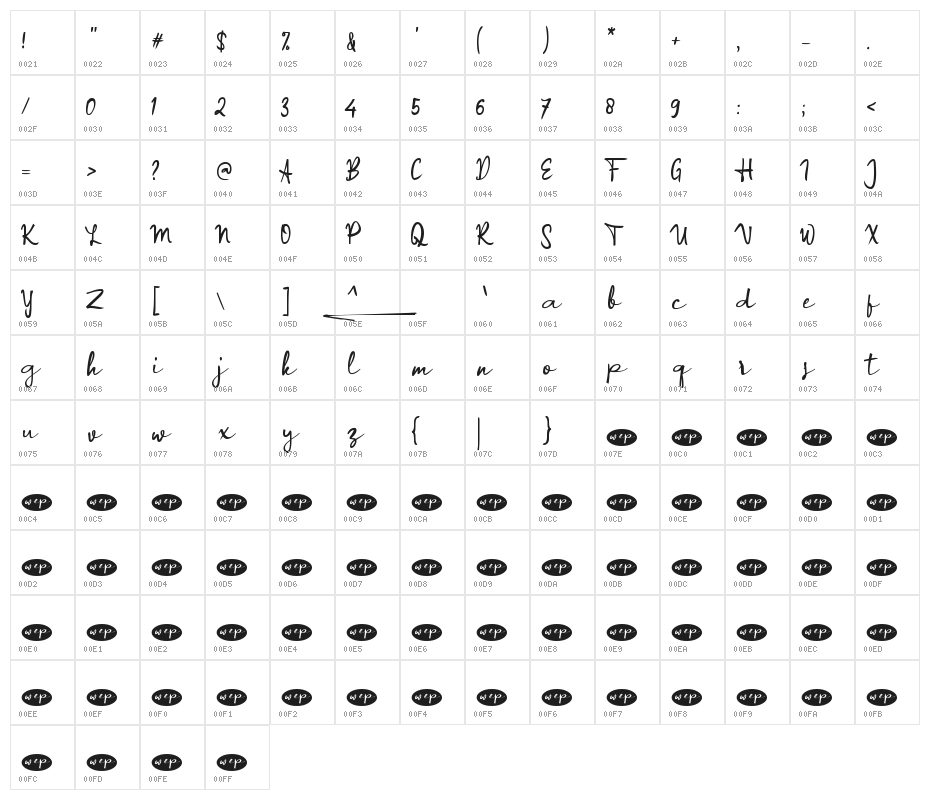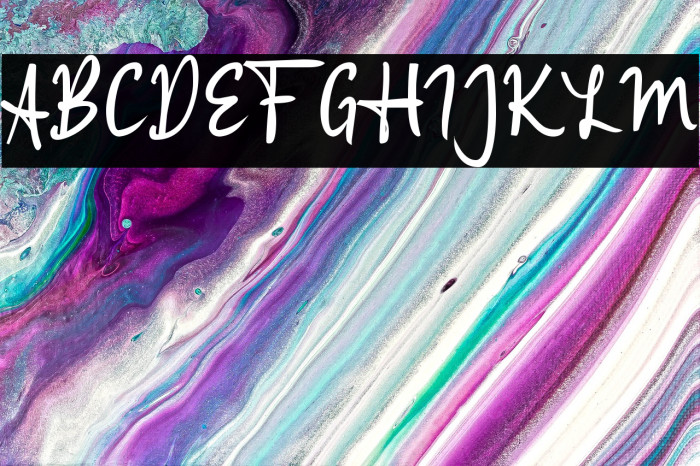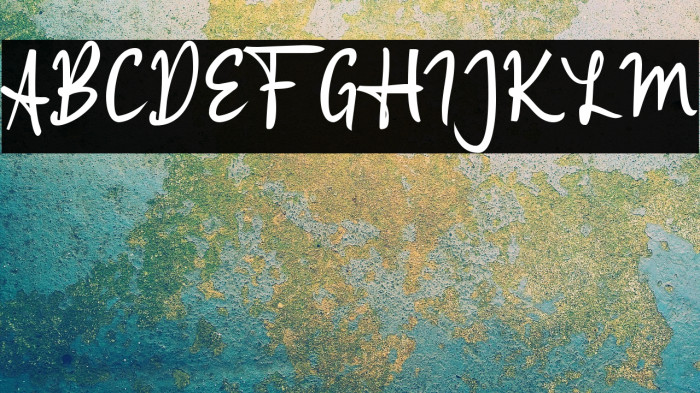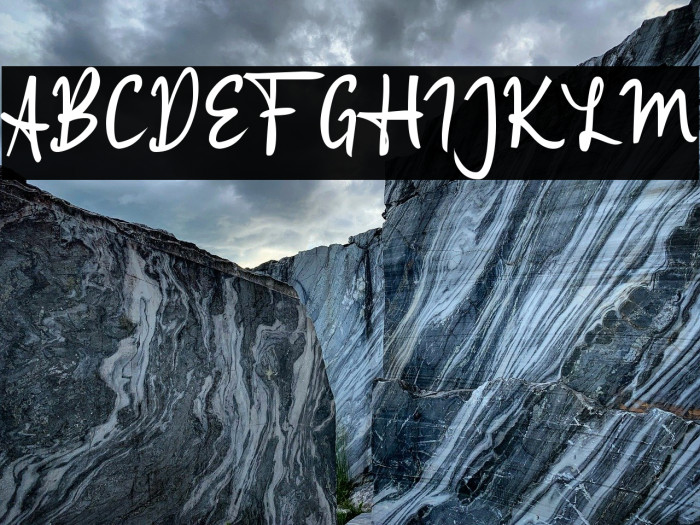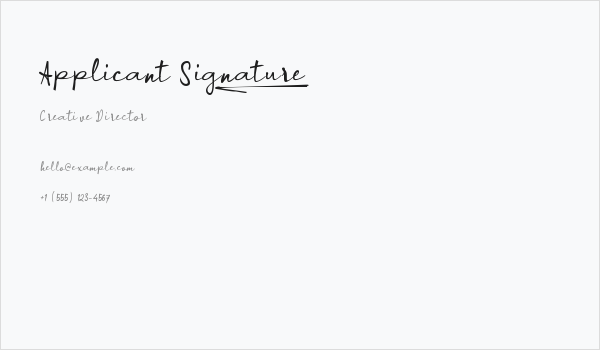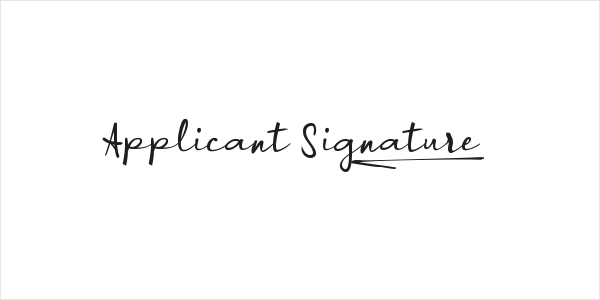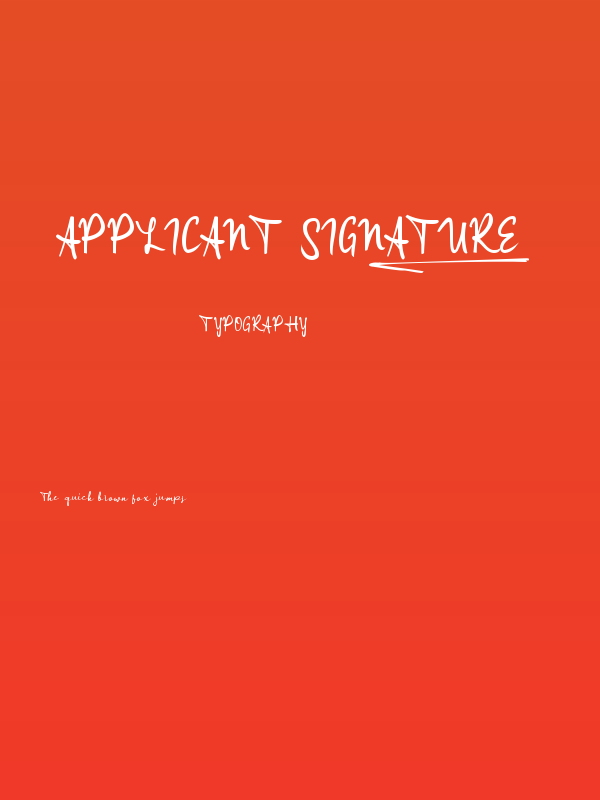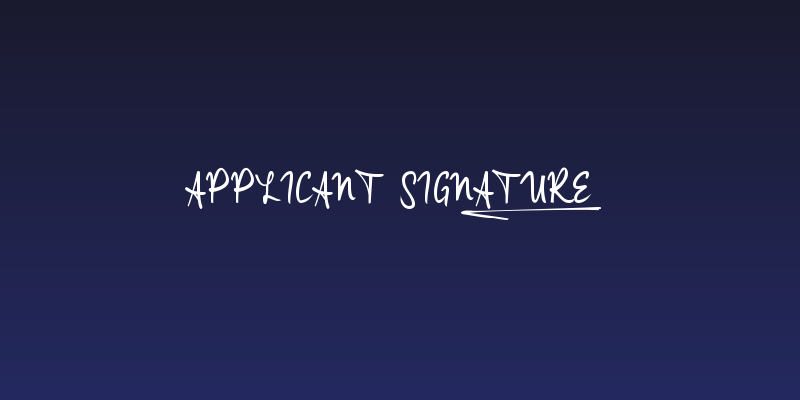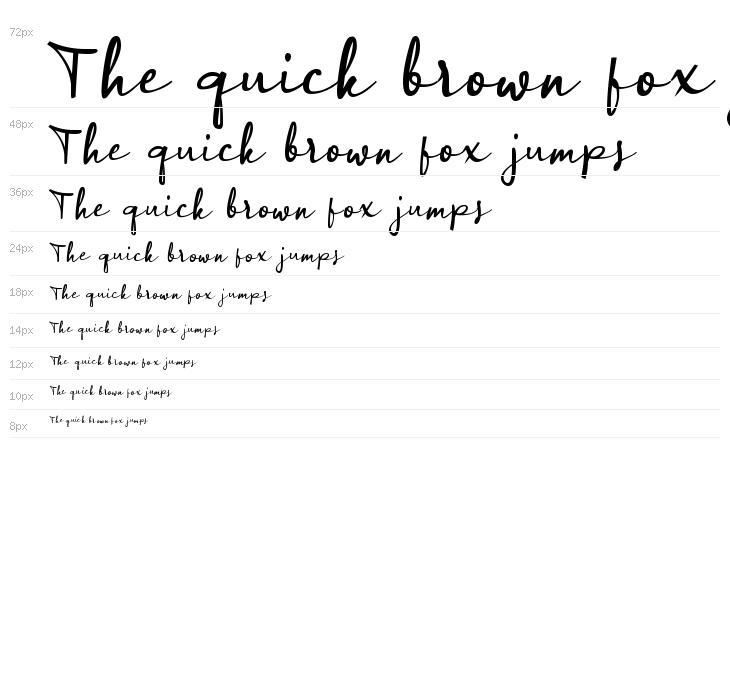
Applicant Signature_ Font
Applicant Signature_ Description
This font exudes a handwritten charm with its flowing, cursive style. The uppercase letters are bold and slightly slanted, giving a sense of movement and elegance. The lowercase letters maintain a consistent flow, with smooth curves and a natural, organic feel. The numbers are clear and legible, matching the overall style of the alphabet. Special characters are integrated seamlessly, maintaining the font's cohesive look. This font is perfect for projects that require a personal touch, such as invitations, greeting cards, or branding materials that aim to convey warmth and approachability.
| Overall Style | Elegant, Personal |
| Proposed Projects | Ideal for invitations, greeting cards, personal branding, and any project requiring a personal, elegant touch. |